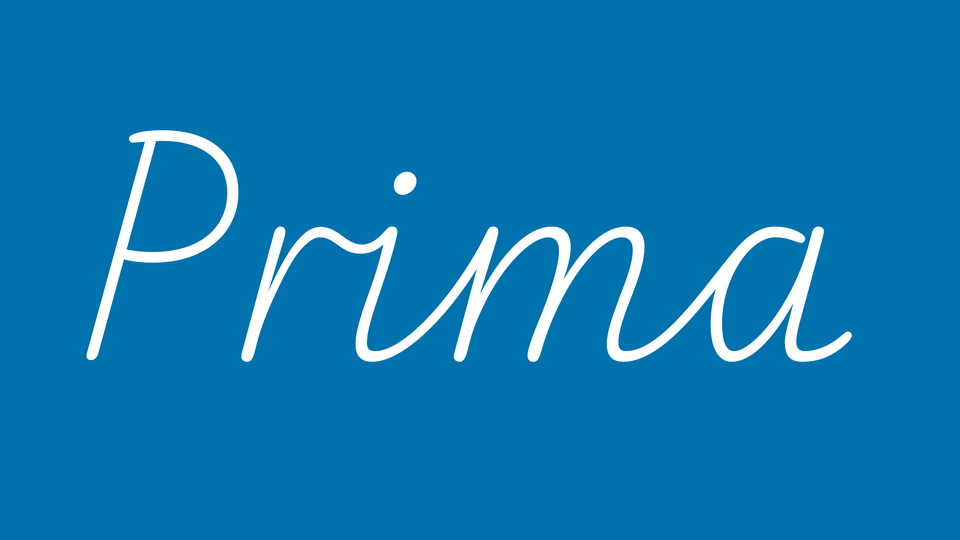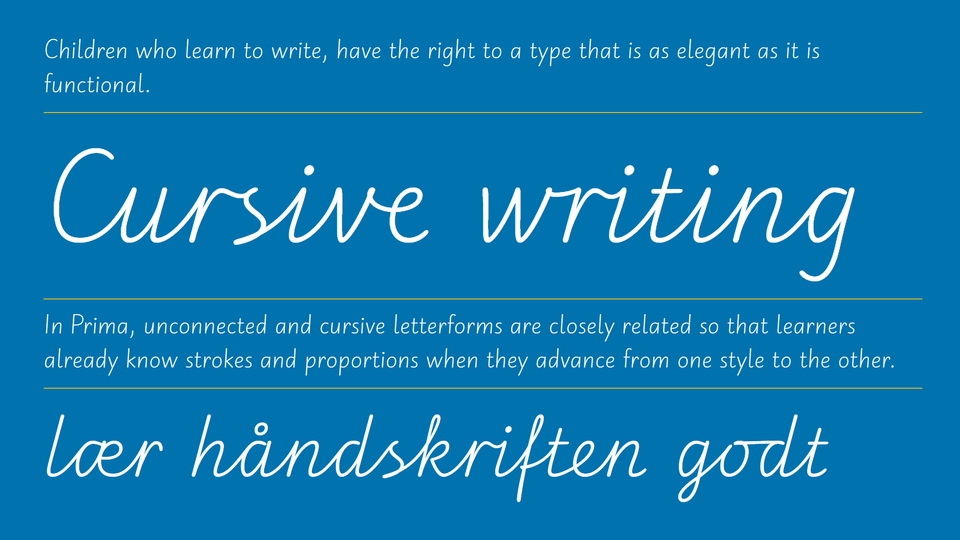
Prima is a typeface that has been designed to help in learning to read and write. Its development was commissioned by the Wiener Bildungsserver and the first two styles, regular and cursive, were designed from 2021 to 2023 by Titus Nemeth (Wiener Schriften) and Martin Tiefenthaler.
In Prima, unconnected and cursive letterforms are closely related so that learners already know strokes and proportions when they advance from one style to the other.
A central principle of Prima is to allow for variation. It offers multiple proven solutions, rather than a single prescriptive design, to guide pupils in the development of their own hand.
In Prima, connections were designed to allow a maximum of fluidity and evenness. The treatment of joints as separate elements allows for ergonomically sound connections between letters.
In Prima cursive not all connections are compulsory, for nobody who writes swiftly joins every letter. Yet, it offers exemplary connections as a model. The choice whether to use them or not remains with the writer.